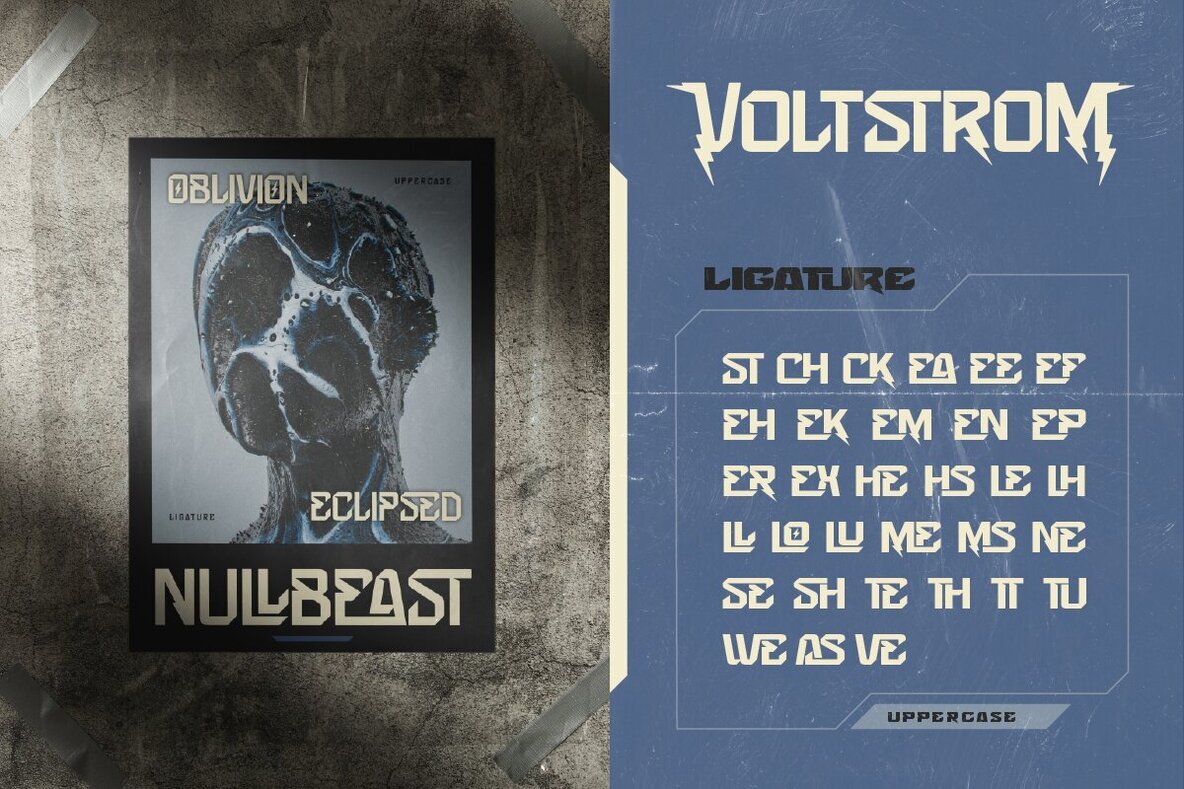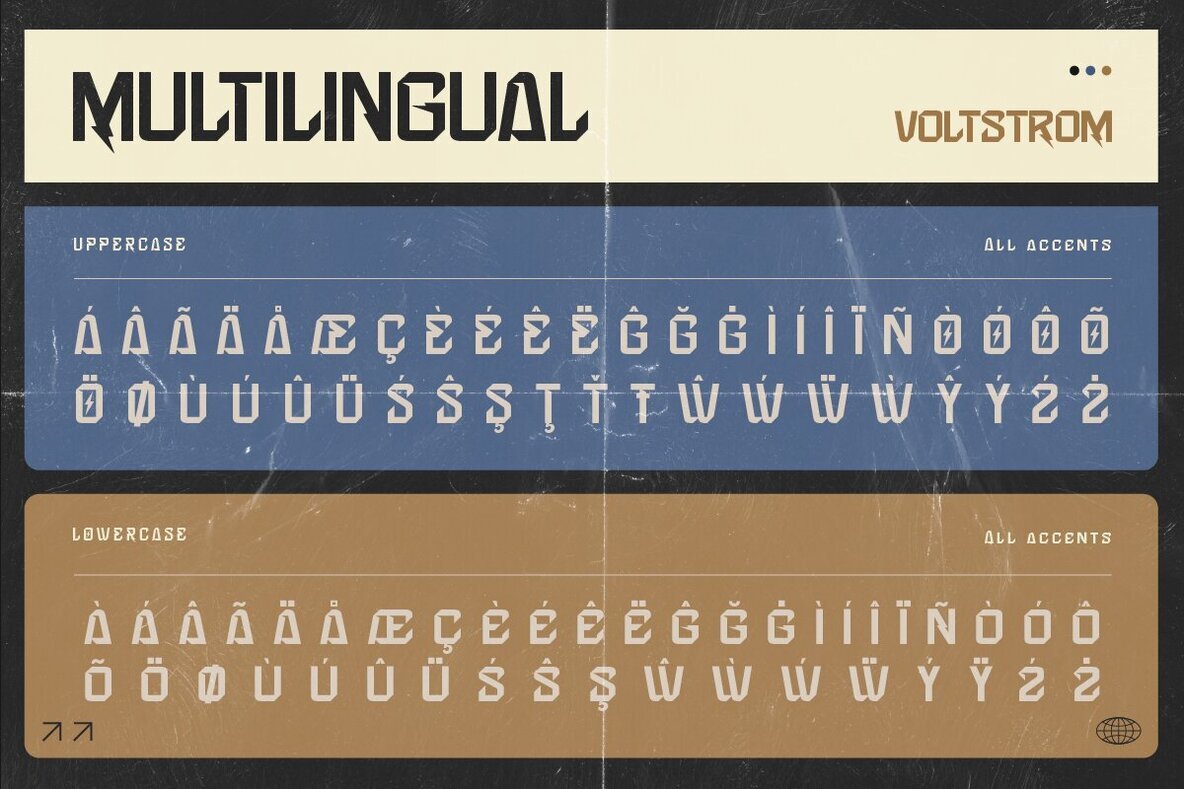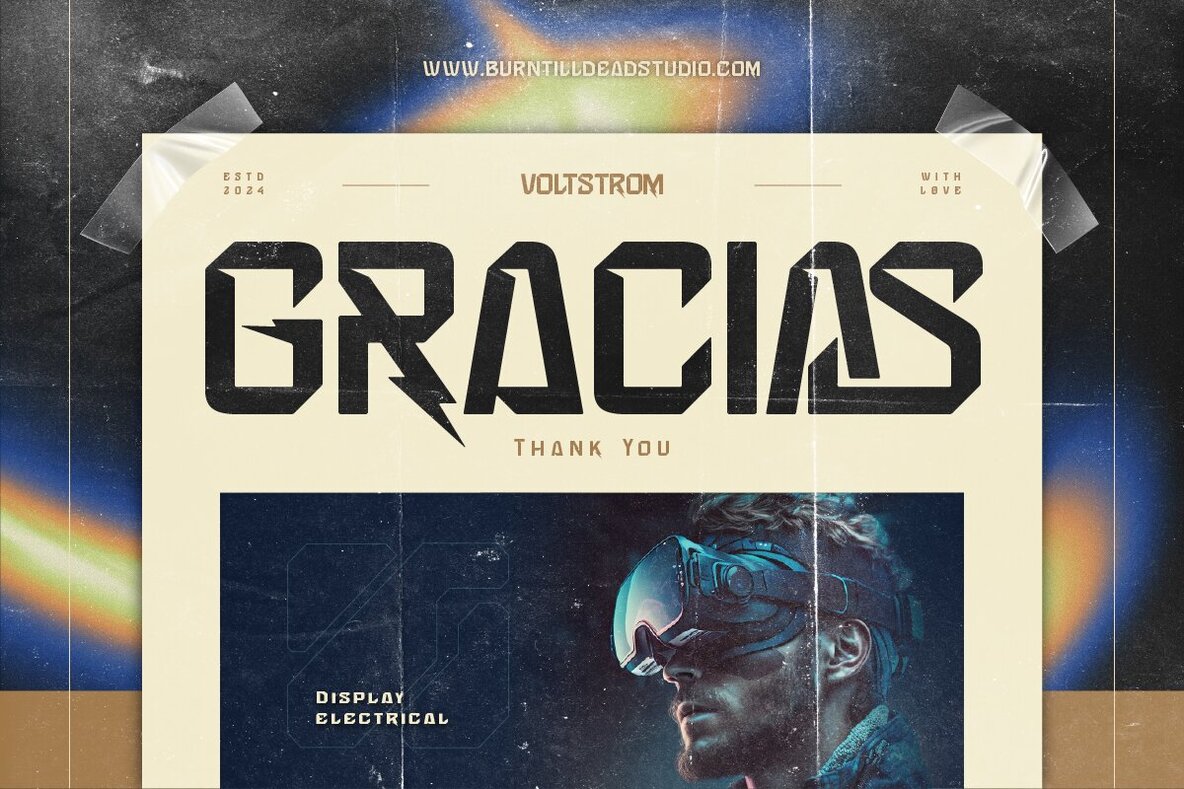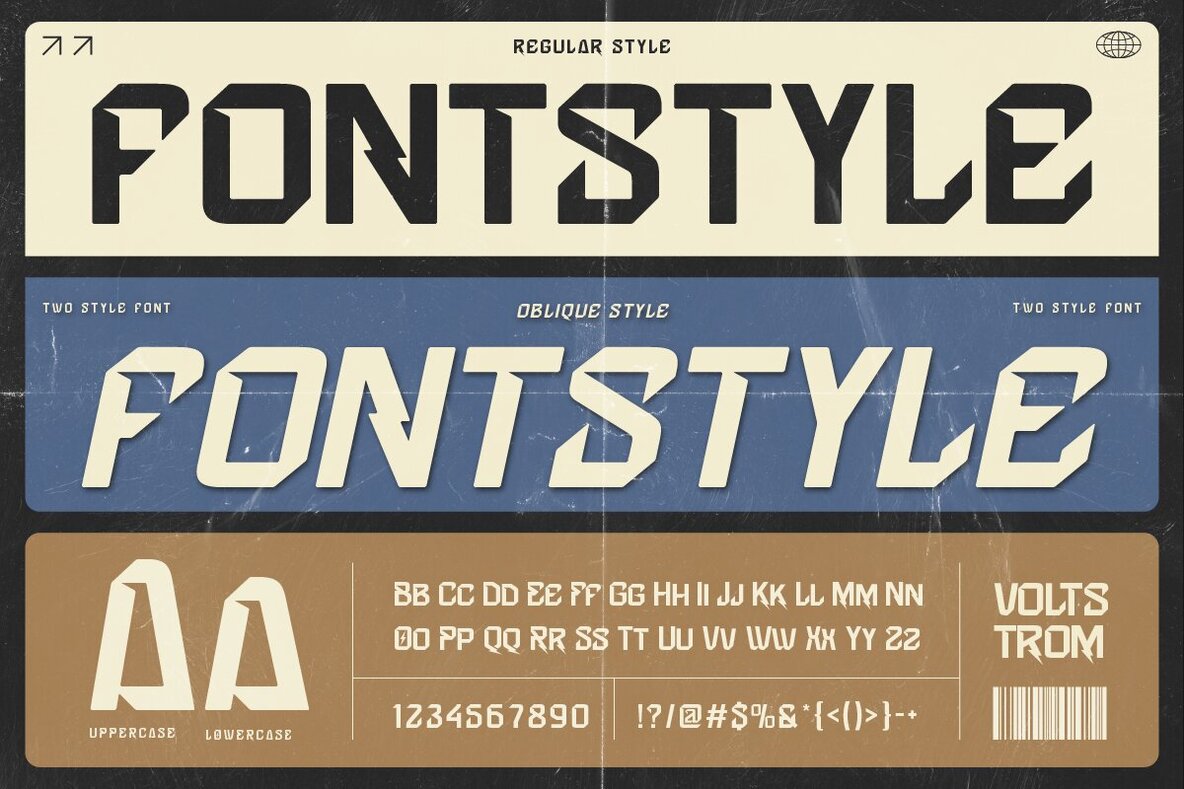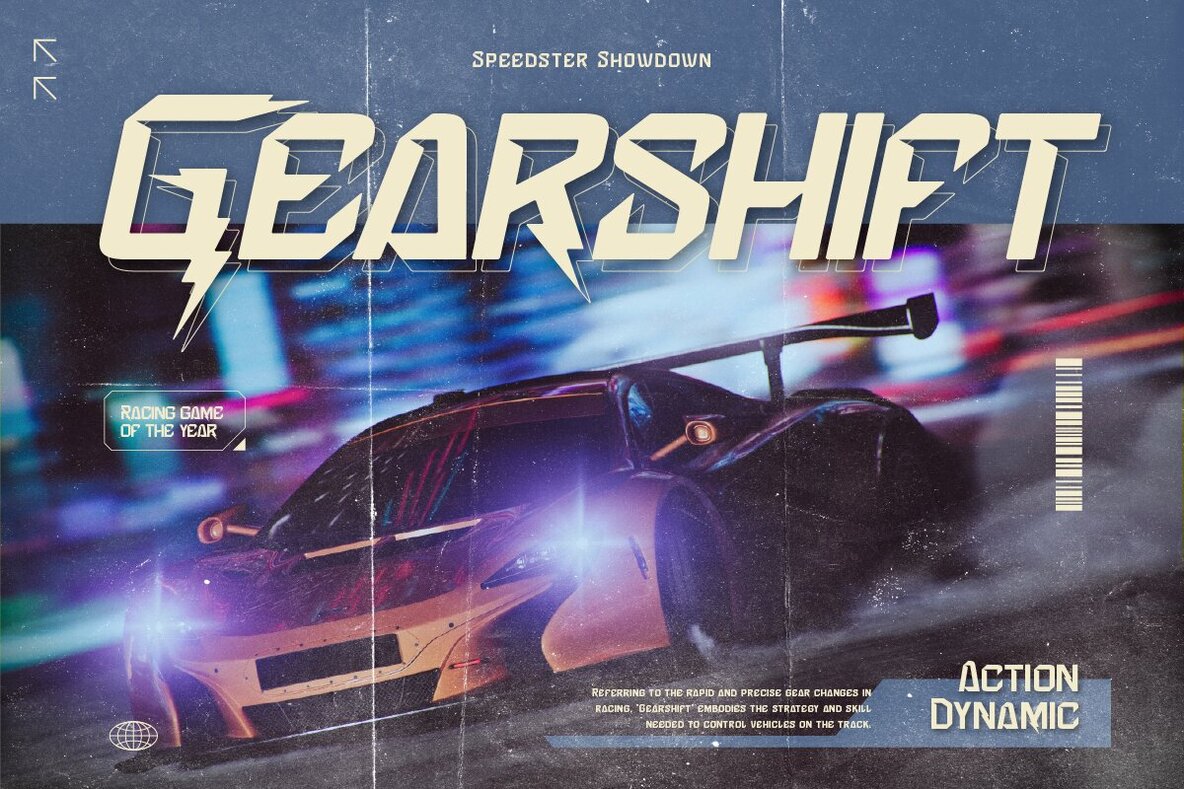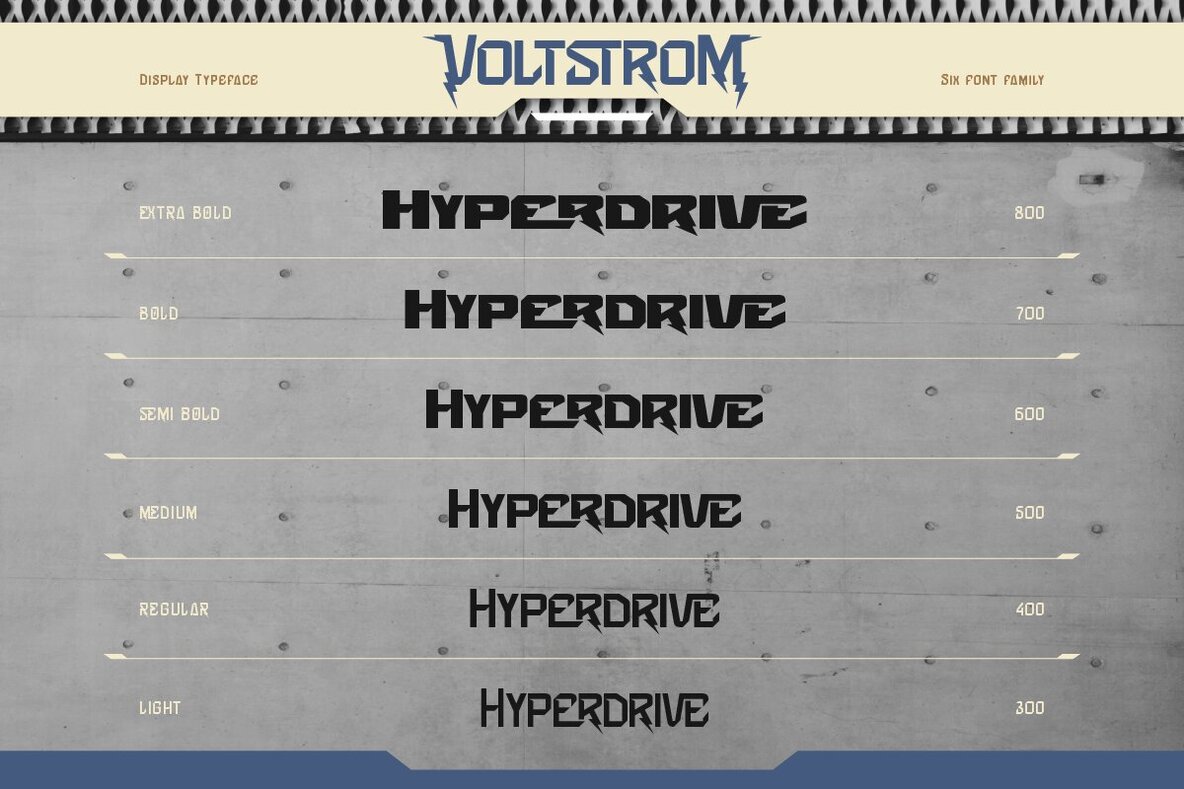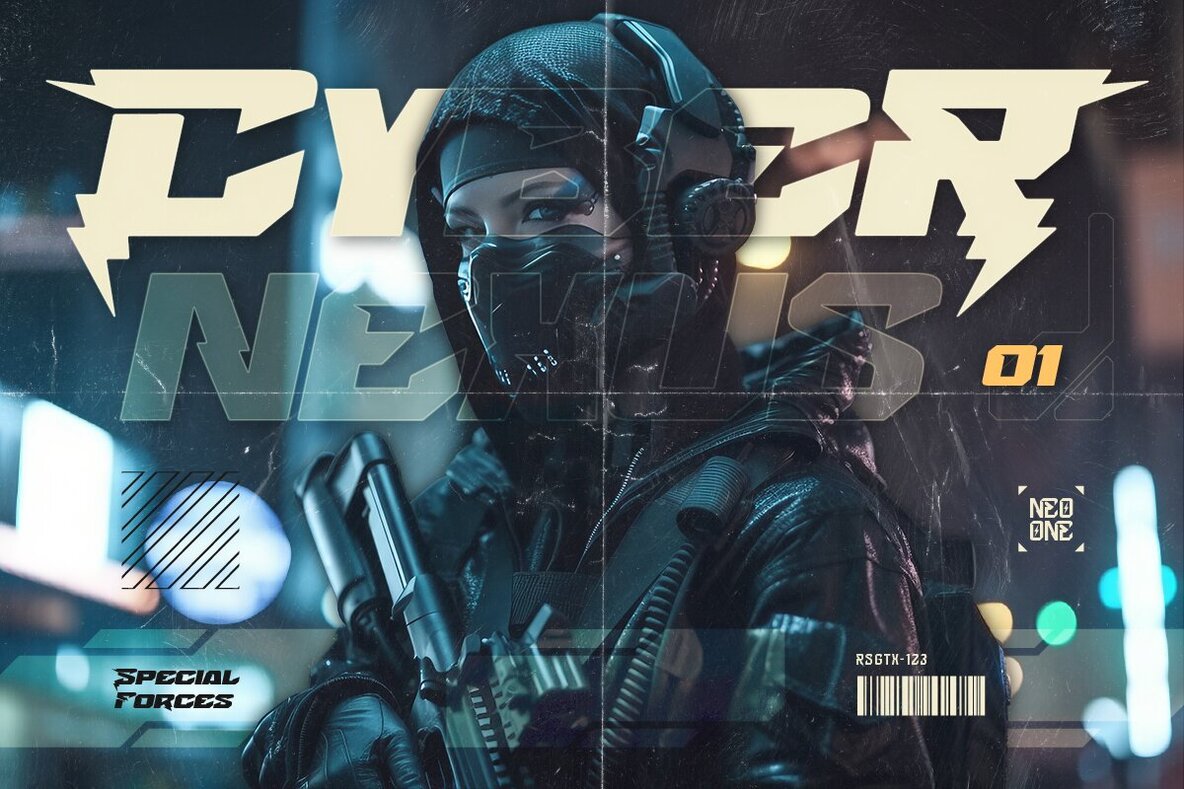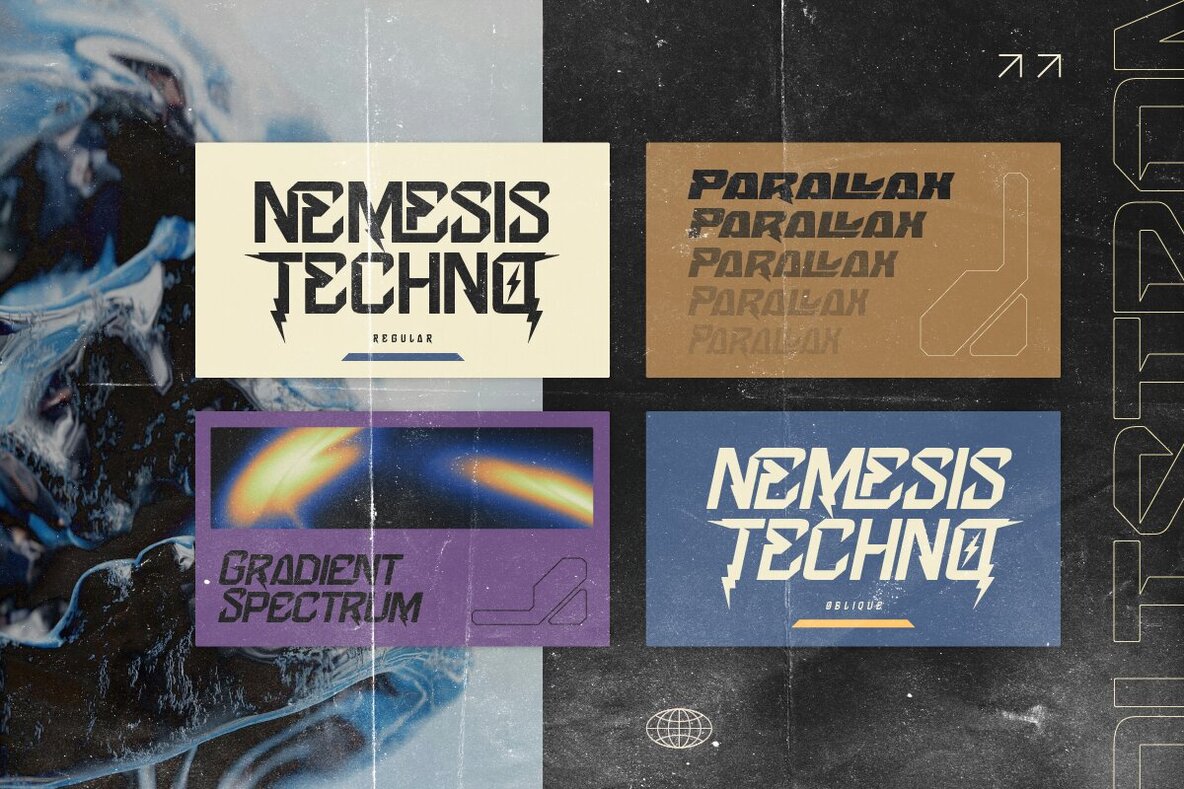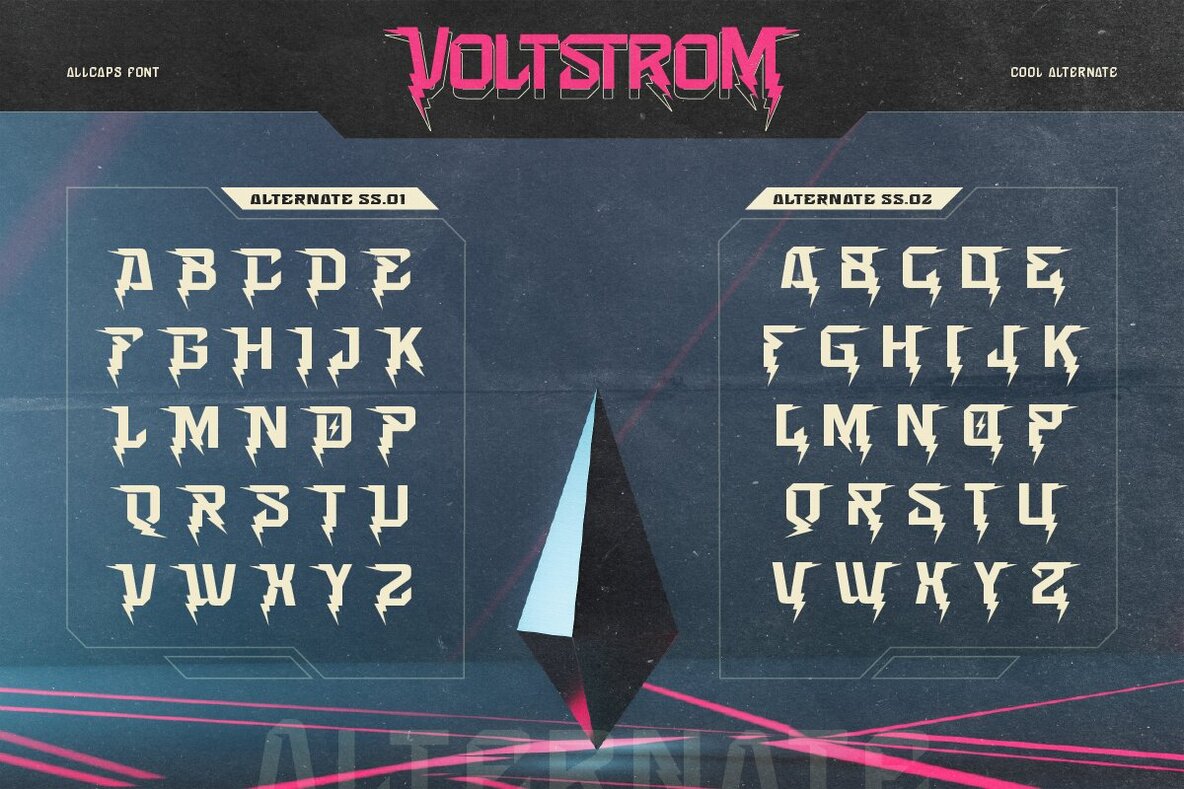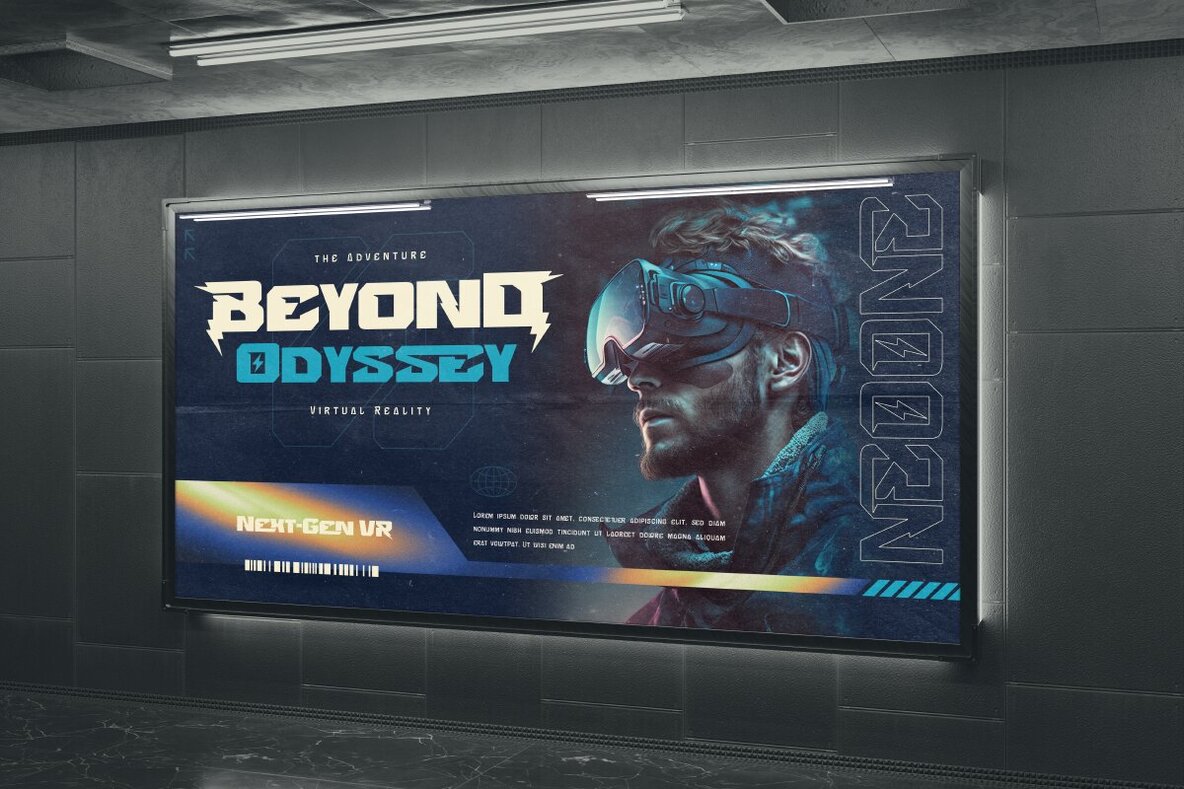
Voltstrom Font
Electrify your design with Voltstrom! An electrical family font with 6 font family and 2 styles, regular and oblique. Voltstrom characterized by modern and high energy which looks from the electricity of lightning bolt. Voltstrom are perfect for any kind of design project that need electric or tech themed. Features: